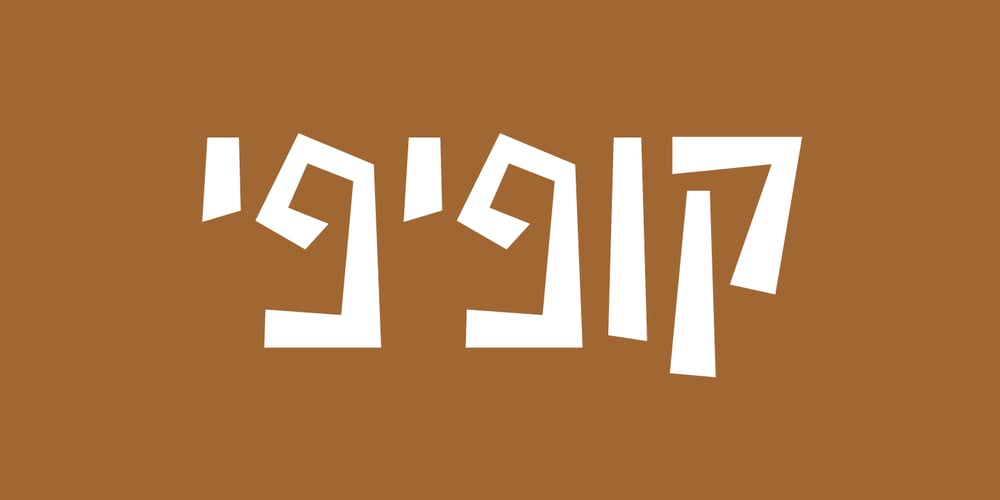
Aluma Font Family was designed by Zvika Rosenberg and published by Masterfont. Aluma contains 2 styles and family package options. This calligraphic scribble follows the traditional Hebrew type by intensive and free hand drawn lines.